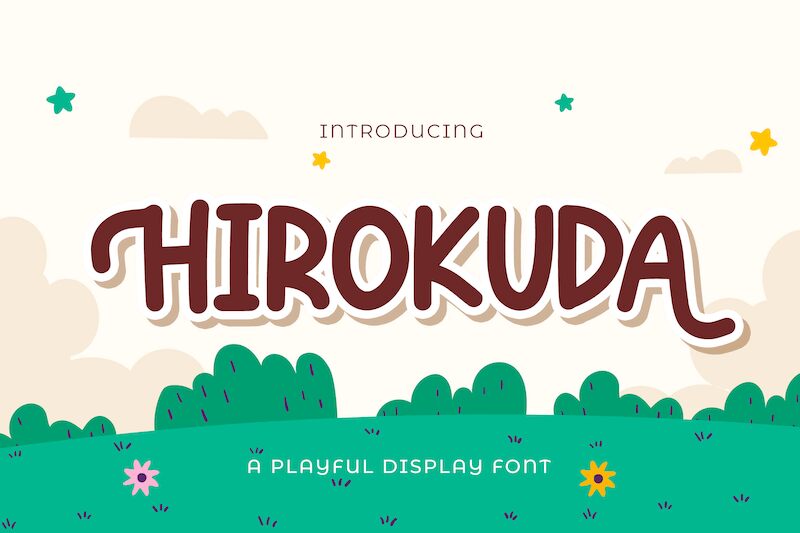
HIROKUDA
Hirokuda font, crafted by StringLabs Creative Studio, is a vibrant display typeface that exudes a playful cartoon essence. Its bold and rounded characters bring a delightful warmth and personality to any design, making it an inviting choice for creative projects.
The whimsical curves and exaggerated forms create a sense of fun that draws attention while maintaining readability. Hirokuda’s generous spacing enhances its visual impact, making each letter feel approachable and engaging. Ideal for children’s books, playful branding, or any project aiming for a light-hearted tone, this font embodies creativity and joy.
With its unique charm and versatility, Hirokuda can elevate your designs with a refreshing burst of character that resonates across various mediums.